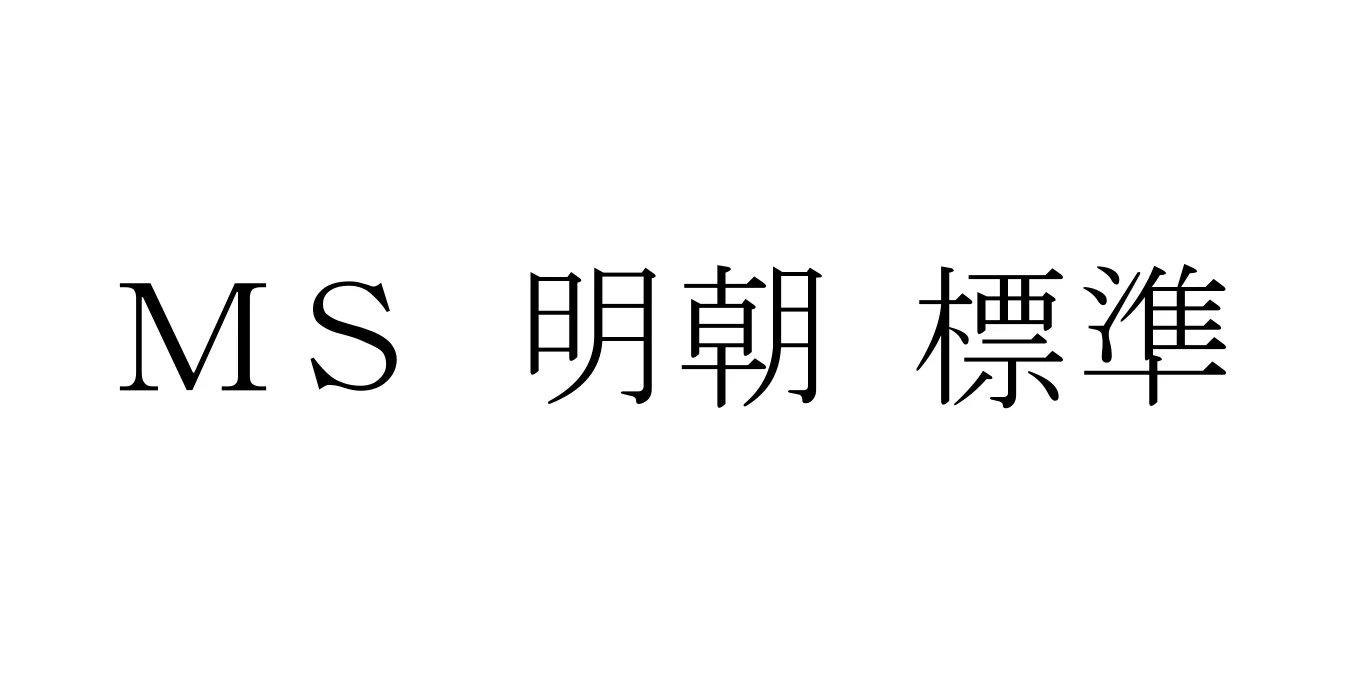
MS 明朝 標準
Designed by Ricoh Co., Ltd.
| Category | Serif (Mincho) |
MS Mincho (MS 明朝 標準) is one of the most recognizable Japanese serif typefaces, famously bundled with Microsoft Windows operating systems. Developed by Ricoh, it is designed to mimic the traditional brush-stroke style of Japanese calligraphy while maintaining the crispness required for digital displays. Its balanced proportions and clear stroke terminals make it a foundational element for Japanese desktop publishing and professional documentation.
Over the decades, MS Mincho has served as the default standard for professional and academic documentation in Japan. Because it includes a comprehensive set of Kanji, Hiragana, and Katakana characters alongside Latin glyphs, it remains a versatile tool for cross-cultural communication. Whether used in high-resolution print or for screen-based reading, it provides a sense of formality and reliability that defines modern Japanese typography.
MS 明朝 標準 Best Uses
Excellent for long-form text and literary works due to high legibility and traditional aesthetic.
Widely used for formal business letters, government reports, and institutional records.
A standard typeface for thesis papers, educational publications, and scientific journals in Japan.